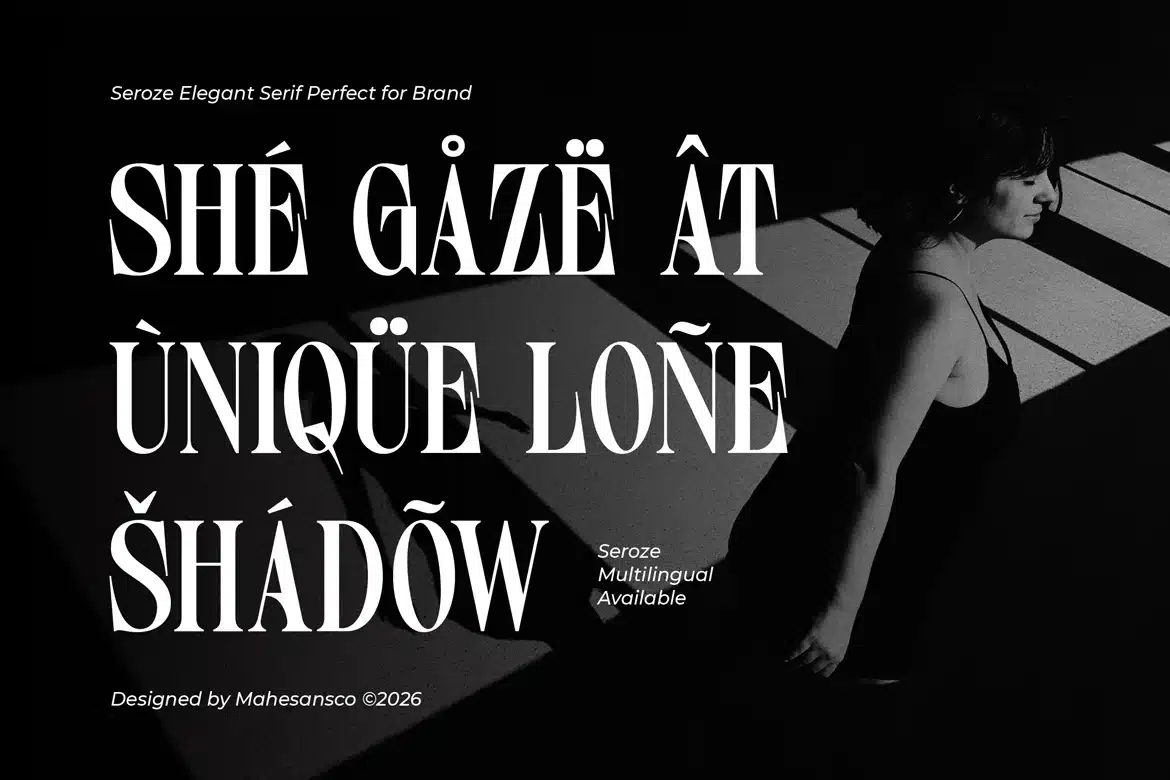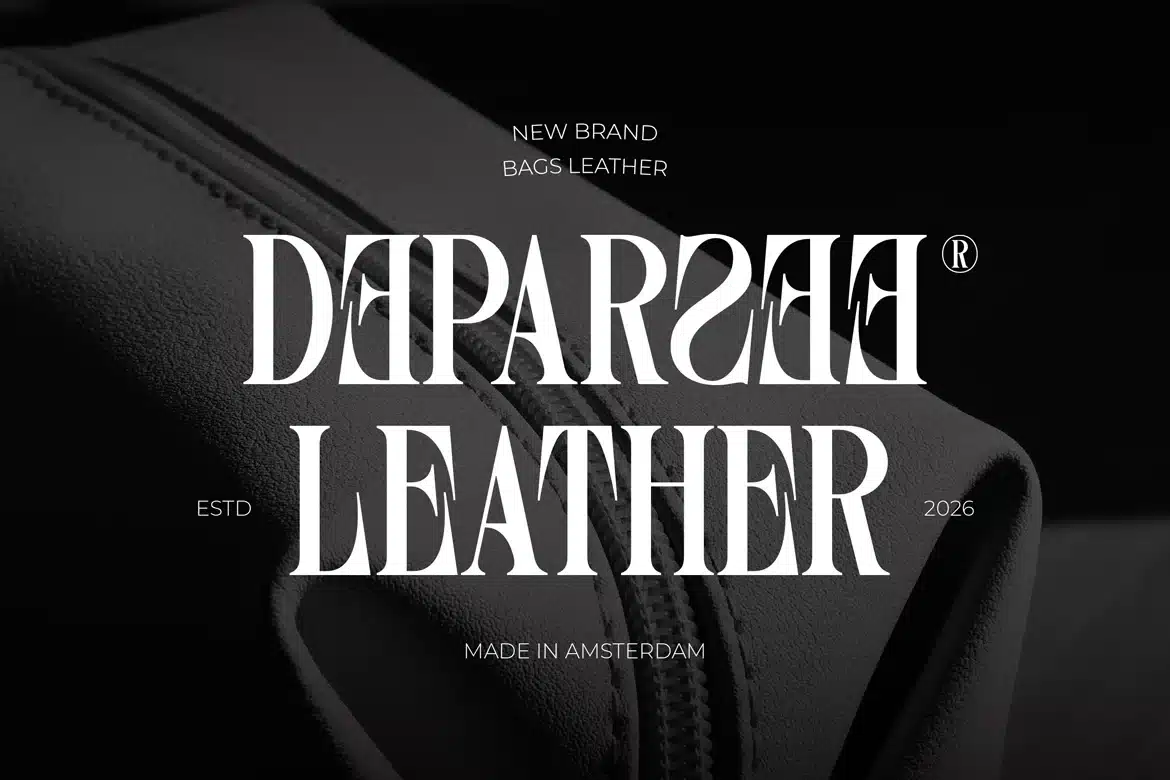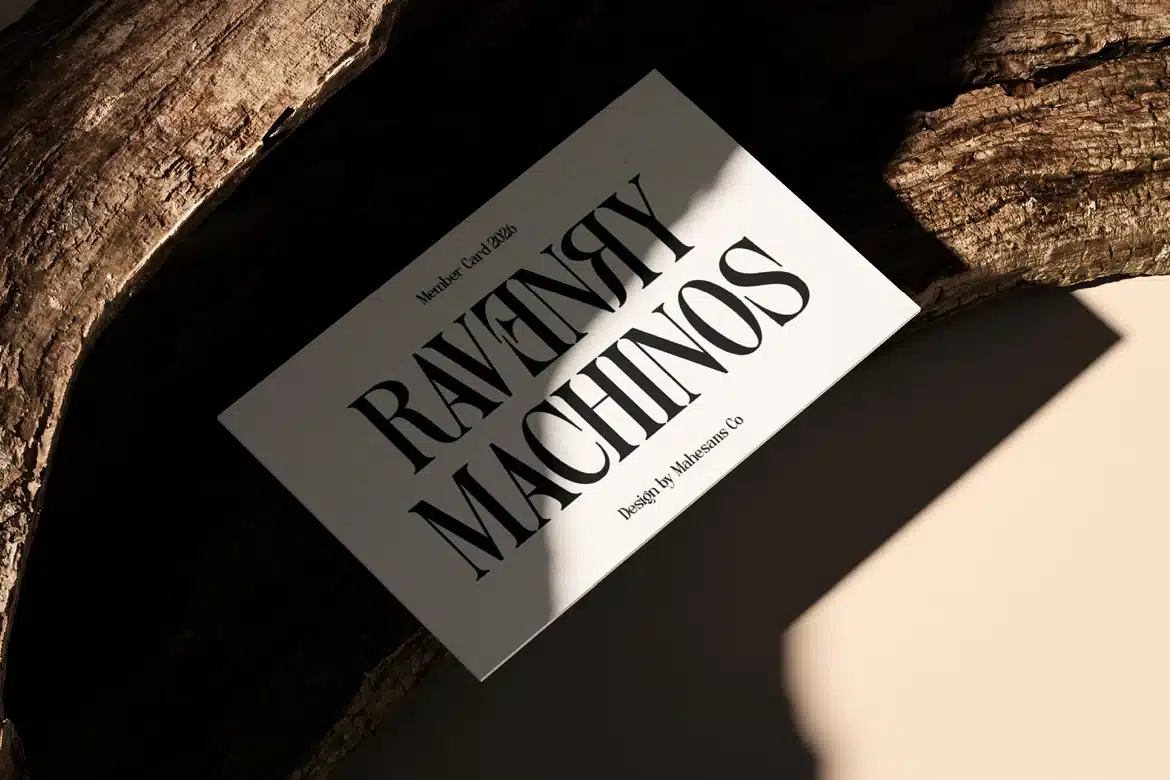
Seroze – Editorial Serif Font
Seroze is a sophisticated modern serif typeface crafted to bring a sense of luxury, elegance, and artistic character into your design work. With its high-contrast strokes, distinctive letterforms, and refined proportions, Seroze delivers a timeless aesthetic with a contemporary edge.
This typeface is not designed to be neutral, it is built to stand out. The carefully crafted alternates and ligatures give you the flexibility to create unique, high-end typography that feels intentional and premium.
Whether you are working on branding, editorial layouts, or visual identities, Seroze enhances your design with a refined and exclusive presence without overwhelming the composition.
Perfect for:
Luxury branding, fashion editorials, logos, magazines, packaging, wedding designs, and premium visual identities.